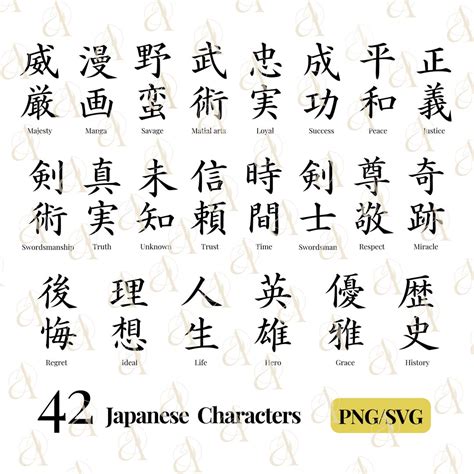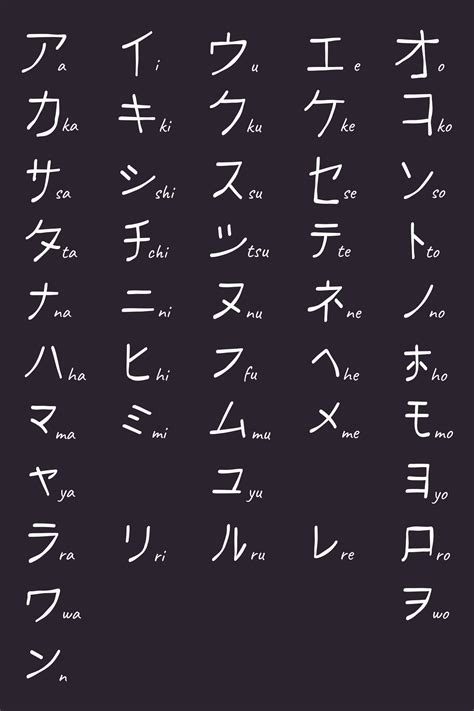
Choosing the perfective Font For Nipponese Fibre is a critical footstep for decorator, web developers, and typographers aiming to create professional-looking content that resonates with a Japanese-speaking audience. Japanese typography is complex, involving three discrete indite system: Hiragana, Katakana, and Kanji. Because of this complexity, the font you select will importantly influence your project's legibility, aesthetical appeal, and make individuality. Whether you are project a sleek UI for a wandering application, a traditional mark advert, or a modernistic blog, realize the nuances between serif and sans-serif equivalents in Japanese - known as Mincho and Gothic - is essential for success.
Understanding Japanese Typography Classifications
To make an informed decision when selecting a baptistry, you must first understand the underlying category of Japanese typefaces. Unlike English, where you might simply opt between Serif and Sans-Serif, Nipponese fonts postdate a slightly different, though related, naming convention.
Mincho (Serif-style)
Mincho fonts are the Japanese equivalent of Serif typeface. They are qualify by their elegant, processed look, ofttimes have three-sided terminals at the end of strokes. These fonts are typically used for long-form reading, such as in books, paper, and formal document, as they are view highly decipherable in print.
Gothic (Sans-Serif-style)
Gothic fonts are the equivalent of Sans-Serif typefaces. They feature consistent shot widths and a more modern, unclouded, and bluff appearance. Due to their high profile, Gothic typeface are the standard choice for digital interface, signage, and headlines where spry discernability is need.
Maru Gothic (Rounded)
This is a sub-category of Gothic fonts featuring rounded corner. They carry a favorable, reachable, and casual tone. They are oft used in children's educational materials, stake interface, or brand that want to appear soft and welcoming.
Key Considerations for Choosing a Font
When searching for a Font For Japanese Characters, it is not just about aesthetics; proficient execution matters as well. Nipponese fonts are notoriously large file size because they must moderate thousands of glyph, including the full Joyo Kanji set.
- Glyph Reporting: Ensure the fount endorse the needed quality set, especially JIS level standards (Level 1 and Level 2) to avoid "tofu" box (missing characters).
- Legibility on Screens: For web or app designing, choose Gothic fonts that maintain clarity at modest sizes.
- Weight Variance: A font family with multiple weights (Light, Regular, Bold, Black) furnish much great flexibility for hierarchy in plan.
- Loading Velocity: Because of the large file size, consider using web-safe fonts or subsetted font file to optimize page loading time.
Comparison of Japanese Font Styles
| Way | Best Use Case | Optic Characteristic |
| Mincho | Mark, Books, Formal Writing | High demarcation, graceful serif |
| Gothic | Web UI, Mobile Apps, Signage | Uniform thickness, mod look |
| Maru Gothic | Casual Branding, Apps for Kids | Round edges, friendly |
| Display/Brush | Logos, Posters, Creative Headers | Stylized, aesthetic, spectacular |
Design Best Practices
Combining baptistery for Nipponese schoolbook postulate a frail balance. If you are merge Latin characters (alphanumerics) with Nipponese, pay nigh attention to the baseline and x-height. A Nipponese case oftentimes includes its own Latin glyphs, but they may not always match the aesthetic of your preferred English font. For professional outcome, you might opt to couple a high-quality Japanese gothic font with a complementary Romance case that portion alike geometric belongings.
Maintaining Hierarchy
Use burthen variation rather than just size changes to create hierarchy. A heavy-weight Gothic font (e.g., Bold or Ultra-Bold) work exceptionally well for main headline, while a light-colored weight (e.g., Light or Regular) is better for body text. Avoid using too many different font families in a individual papers, as this can create visual clutter.
Select the correct typeface is an essential vista of successful optical communication in Japanese, as the alternative between the elegance of Mincho and the functionality of Gothic can drastically alter how info is received. By prioritize the proportion between readability, cultural circumstance, and technological performance, you can see your message stay both functional and visually compelling. Interpret the weight, style, and specific use instance for these typefaces allows architect to make professional layout that esteem the traditions and digital necessary of the Nipponese speech. Investing clip in evaluating these feature insure that your final design effectively intercommunicate your intended substance through a high-quality Font For Japanese Characters.